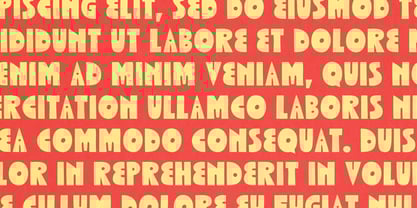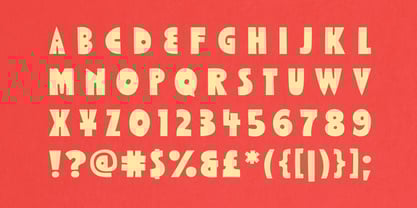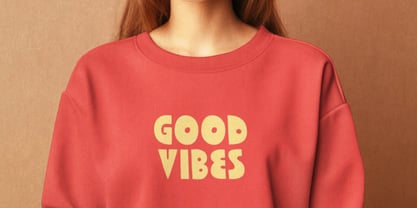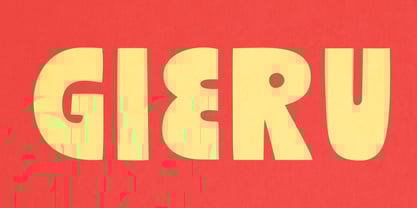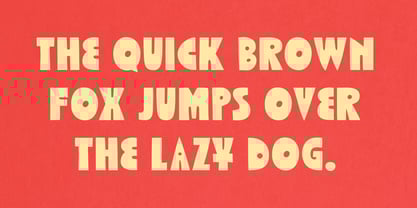
Gieru
GIERU is a bold, playful display font with a retro flair and quirky charm. Inspired by vintage cartoons and hand-crafted signage, it brings energy and personality to headlines, posters, packaging, and branding projects. Its chunky forms, unexpected curves, and stylized cuts make it ideal for projects that dare to stand out.
Whether you're designing for children, food brands, festivals, or vintage-inspired visuals, GIERU adds a joyful and nostalgic touch. Available in uppercase with strong visual rhythm and great legibility even at large sizes.
Make your message loud, fun, and unforgettable with GIERU!